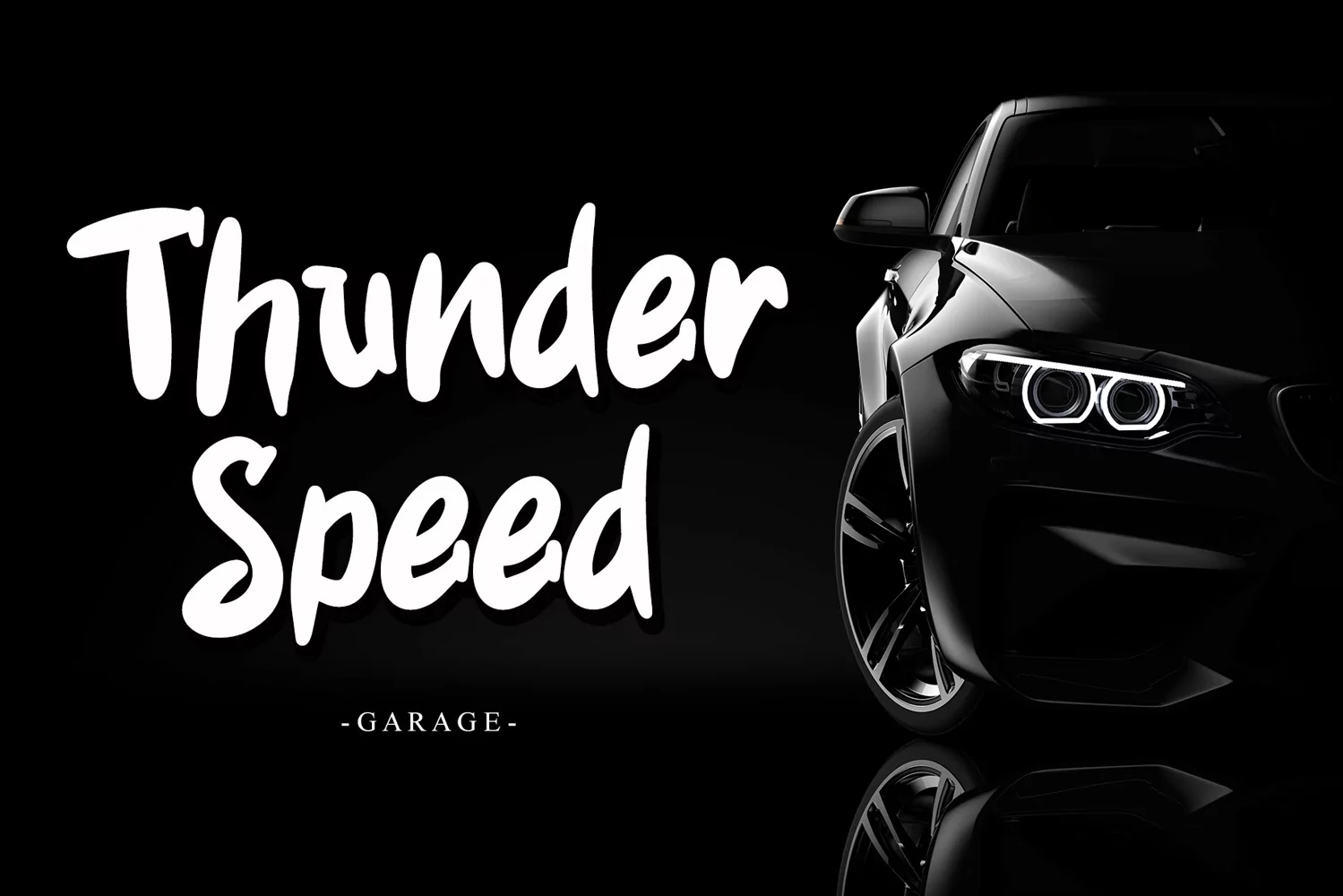
Beautiful Handwritten
Black Thunder is a Modern and friendly brushed display font. This font is PUA encoded which means you can access all of the glyphs and swashes with ease!